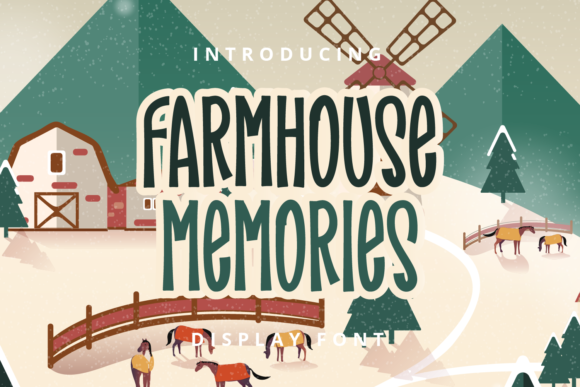
Bringing Your Designs to Life with the Farmhouse Memories Font
Remember the feeling of rummaging through your grandparents’ attic, uncovering old family heirlooms and dusty trinkets that told stories of the past? As a designer, you’re always on the lookout for that special something that transports your audience to a different time and place. For me, that something is the Farmhouse Memories Font – a beautiful, playful display font that captures the essence of rustic charm and nostalgia.
With its unique and beautiful touch, the Farmhouse Memories Font is the perfect choice for creating eye-catching logos, branding, and quotes that stand out from the crowd. Whether you’re designing for a rural-themed project or simply want to add a touch of whimsy to your work, this font is sure to bring your designs to life.
Farmhouse Memories Font Key Features
- Font Family: Farmhouse Memories
- Unique Characteristics: Distressed, vintage, and hand-drawn design elements, with subtle texture and imperfections
Designer Review: Farmhouse Memories Font
As a designer, I was excited to dive into the Farmhouse Memories Font and see what it had to offer. Overall, I was impressed with the font’s charm and character.
- The font’s distressed, vintage aesthetic is spot on for farmhouse-themed designs.
- The font’s bold, chunky strokes make it easy to read, even at small sizes.
- The font’s versatility allows it to work well in a variety of contexts, from signage to packaging.
- The font’s consistency can be a bit hit-or-miss, with some characters feeling a bit uneven.
- The font’s limited character set may make it difficult to use in more complex designs.
- The font’s distressed aesthetic may not be to everyone’s taste.
Overall, I would recommend the Farmhouse Memories Font for designers looking to add a touch of vintage charm to their projects. While it’s not without its limitations, the font’s unique aesthetic and versatility make it a solid choice for the right projects.
Tip: Use Farmhouse Memories Font to create a vintage-inspired design for your social media graphics or blog posts.
Tip: Use Farmhouse Memories Font to create a distressed or worn look for your designs by applying a texture or effect.
Tip: Use Farmhouse Memories Font to create a rustic or country-inspired design for your presentations or documents.
Farmhouse Memories Font is perfect for:
- Vintage-inspired designs
- Rustic or country-themed projects
- Distressed or worn looks
Alternatives to Farmhouse Memories Font
Great Vibes Font is a handwritten font that exudes a carefree, bohemian feel. It is perfect for designers who want to create a laid-back, summery vibe. It is more cursive and elegant compared to Farmhouse Memories Font, which is more rustic and vintage.
Alex Brush Font is a beautiful, elegant script font that is reminiscent of handwritten notes. It is ideal for designers who want to create a sophisticated, high-end look. Unlike Farmhouse Memories Font, Alex Brush Font is more refined and polished.
Playfair Display Font is an elegant, high-end serif font that is perfect for designers who want to create a luxurious, vintage feel. It is more formal and structured compared to Farmhouse Memories Font, which is more casual and rustic.
Carolyna Pro Font is a modern, elegant script font that is perfect for designers who want to create a sophisticated, high-end look. It is more refined and polished compared to Farmhouse Memories Font, which is more rustic and vintage. Carolyna Pro Font is ideal for branding and packaging designs.
Creative Project Ideas using Farmhouse Memories Font
Project 1: Rustic Wedding Invitation
Create a charming wedding invitation with the Farmhouse Memories Font, perfect for a rustic-themed wedding. The font’s soft, handwritten feel will add a touch of warmth and romance to your invitation.
How to use Farmhouse Memories Font: Use the font for the main invitation text, such as the couple’s names and the wedding details. You can pair it with a simple, elegant background image or a watercolor design to enhance the rustic feel.